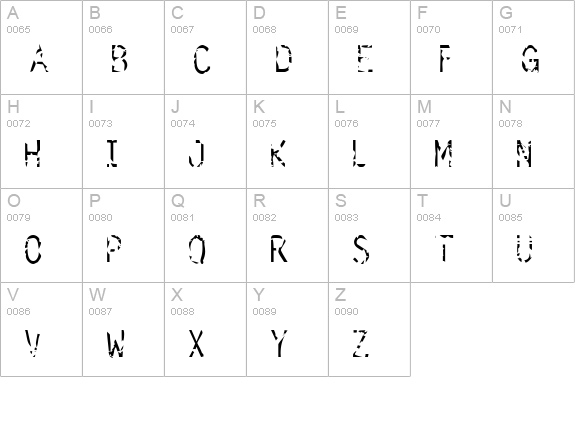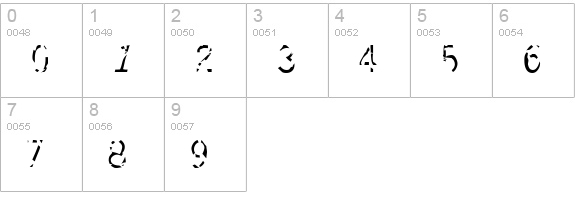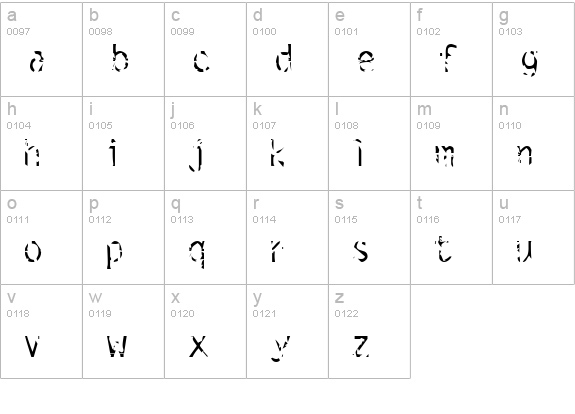
simulation Font Details
Introducing the stunning Simulation Font, a versatile typeface that brings your digital creations to life with its realistic and immersive design. Crafted with meticulous attention to detail, this font captures the essence of simulation and gaming, making it the perfect choice for websites, video games, virtual reality experiences, and more. With its bold and dynamic letterforms, Simulation Font exudes a sense of energy and excitement, instantly grabbing the attention of your audience. Whether you're designing a futuristic interface, creating a gaming logo, or developing a cutting-edge app, this font will effortlessly elevate your project to new heights. But what sets Simulation Font apart from the rest? It's not just its stunning aesthetics, but also its availability. Yes, you heard it right – Simulation Font is absolutely free to download at FontsMarket.com. We believe that great design should be accessible to all, and we're thrilled to offer this incredible font for free, allowing designers, developers, and enthusiasts to bring their visions to life without any restrictions. Say goodbye to limited options and expensive licenses. With Simulation Font, you have the freedom to use it in personal and commercial projects without worrying about any legal constraints. Its versatility and ease of use make it a go-to choice for professionals and hobbyists alike. So, what are you waiting for? Don't miss out on this incredible opportunity to enhance your designs with the captivating Simulation Font. Visit FontsMarket.com today, and download this exceptional font for free. Unleash your creativity and take your projects to the next level with Simulation Font – your gateway to a world of endless possibilities.